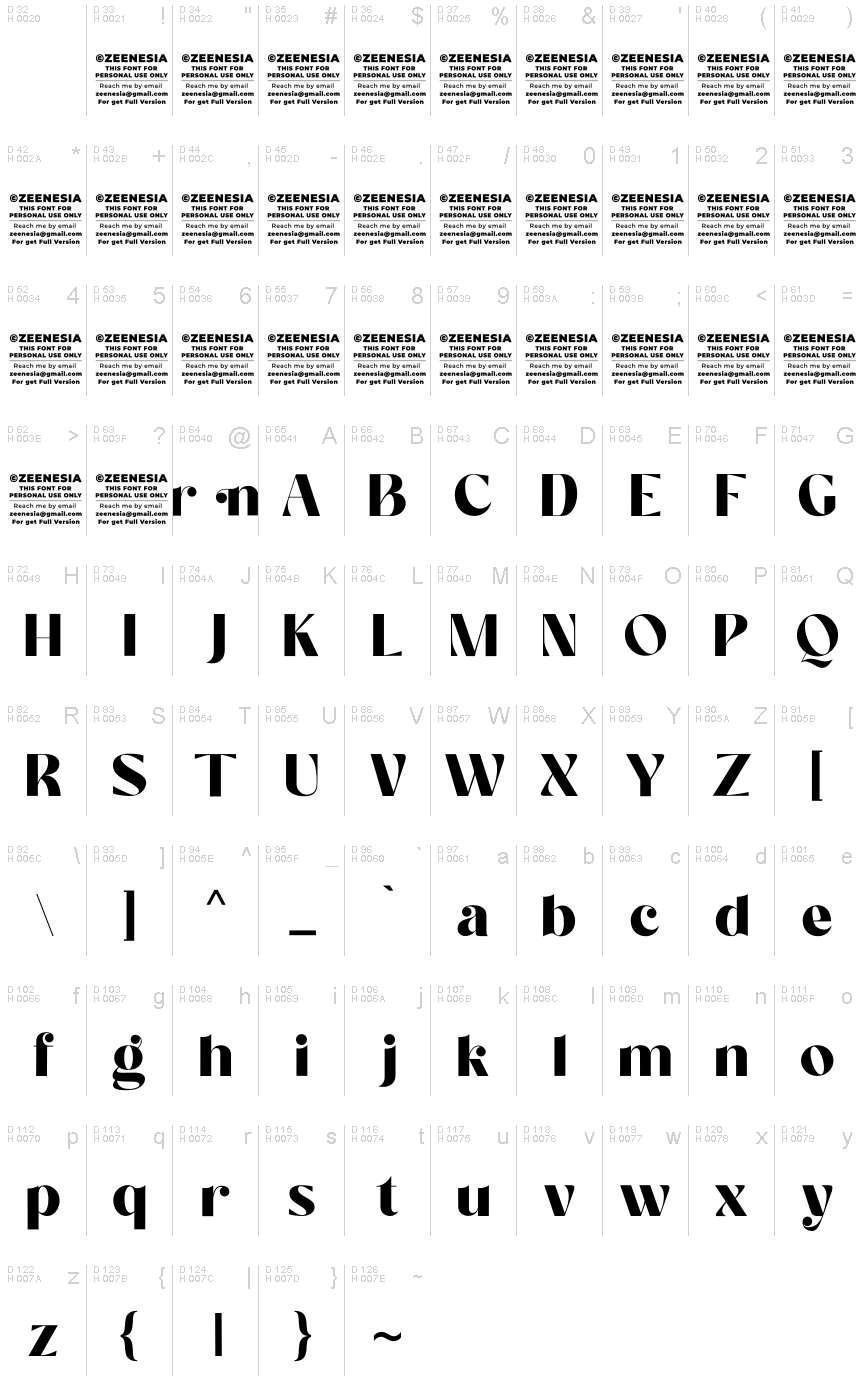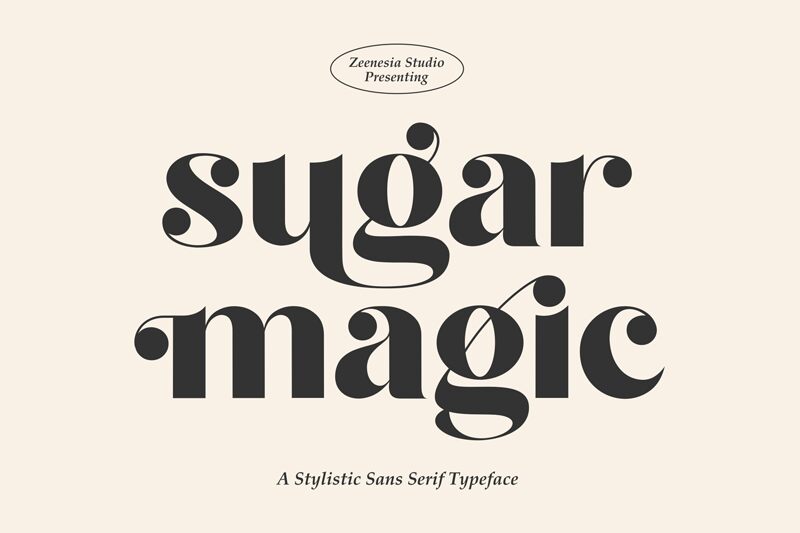
Sugar Magic, a creation by Zeenesia Studio, is a stylish serif font that exudes confidence with its bold strokes and charming elegance. Its robust presence is softened by playful curves, infusing it with a whimsical yet authoritative air. The letters dance with a sense of joy and sophistication, making Sugar Magic an enchanting choice for branding, editorial design, and upscale advertising.
It stands out in contexts that call for both impact and finesse—perfect for adding a touch of enchantment to any message.